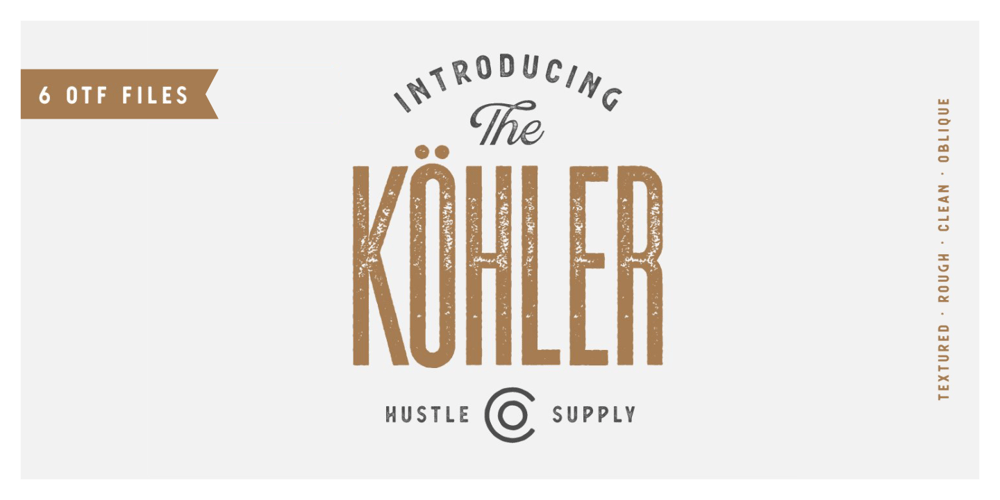
Kohler Font Family was designed by Jeremy Vessey and published by Hustle Supply Co. Kohler contains 6 styles and family package options. KöhlerKöhler is a Condensed Headline Type Family. Köhler comes complete with 6 OTF files. Regular, Rough, Clean & Textured with Oblique counterparts. Köhler is a super condensed typeface with a vintage aesthetic but also doubles as a great modern typeface depending on the final use.Thank you!